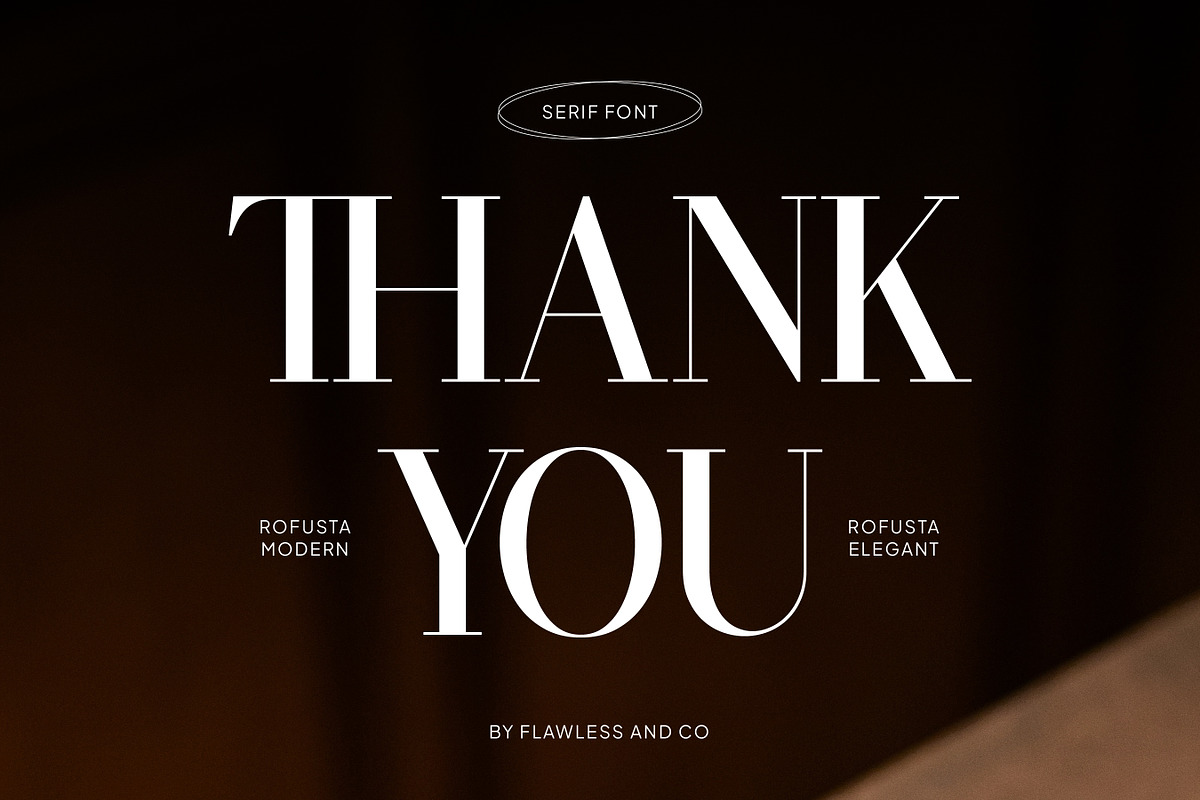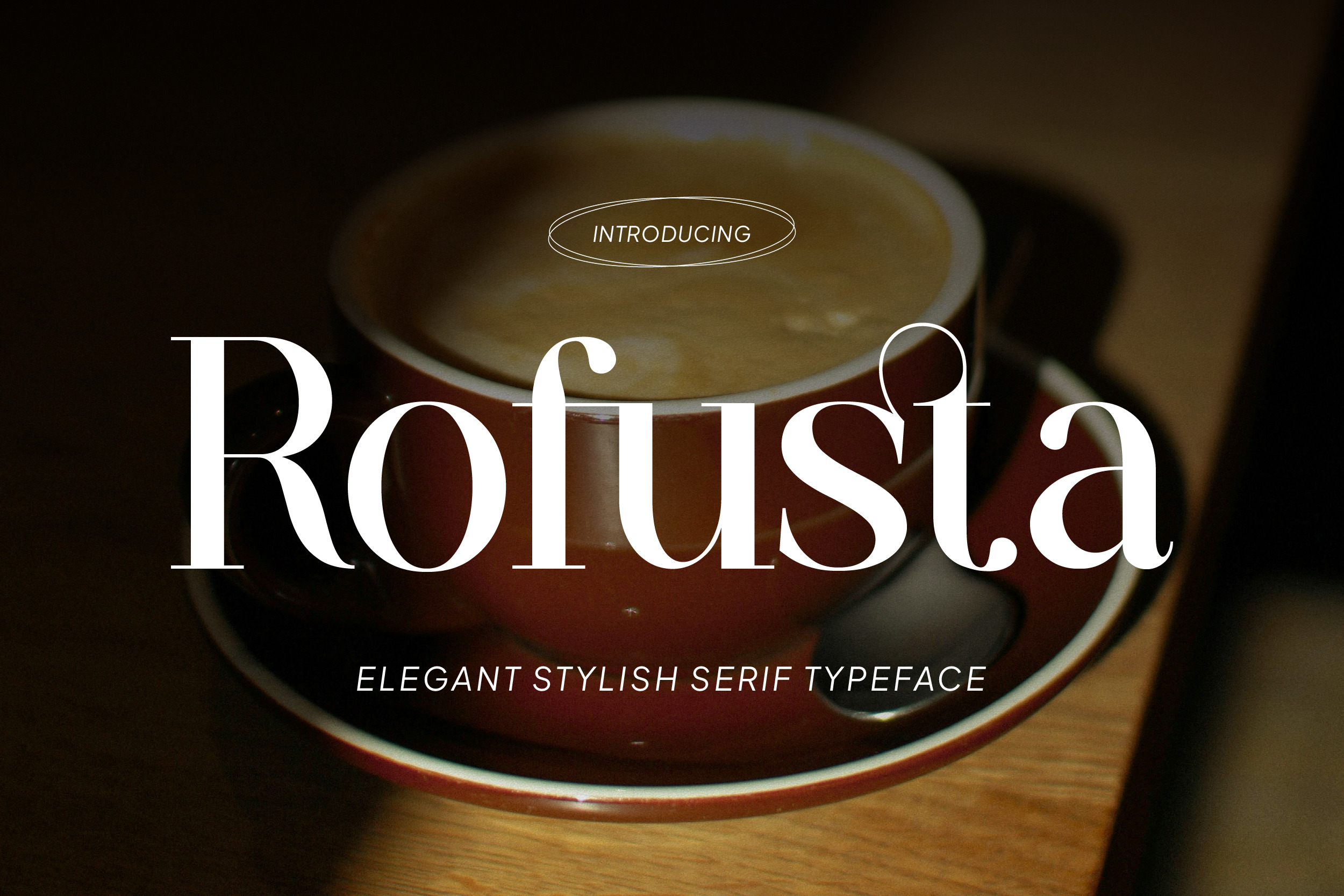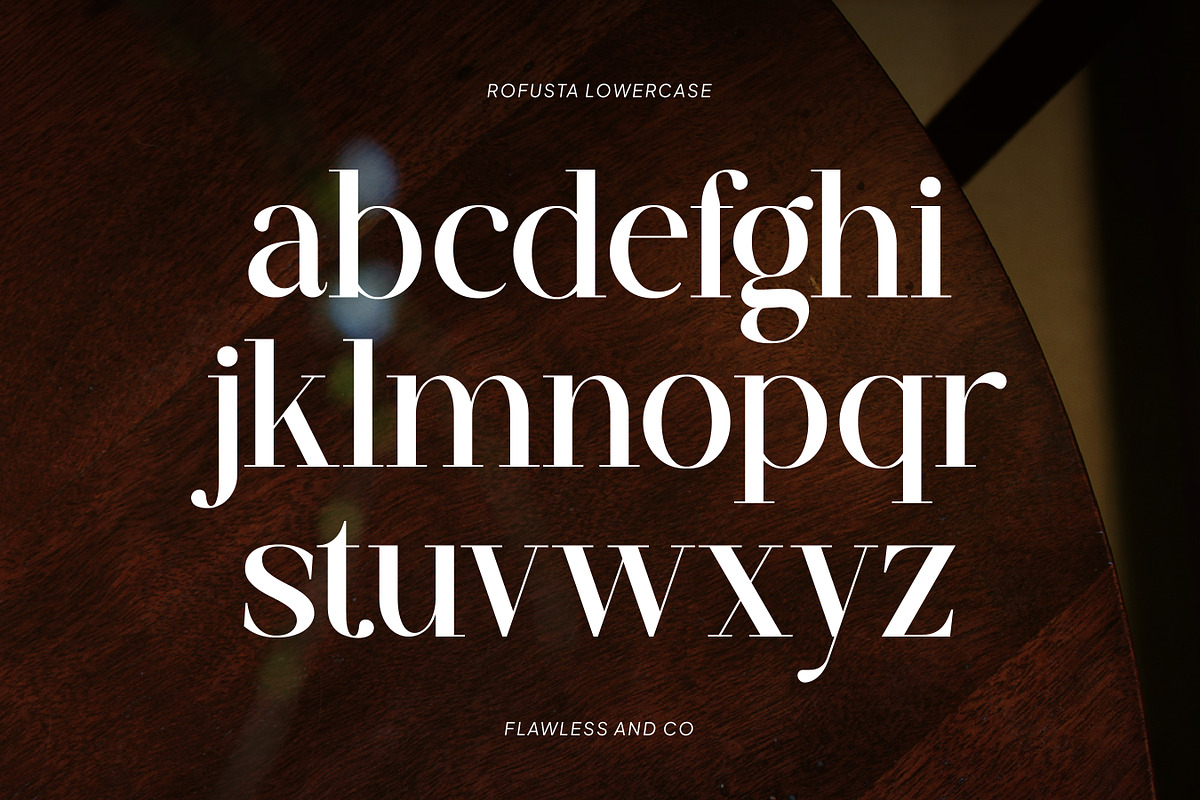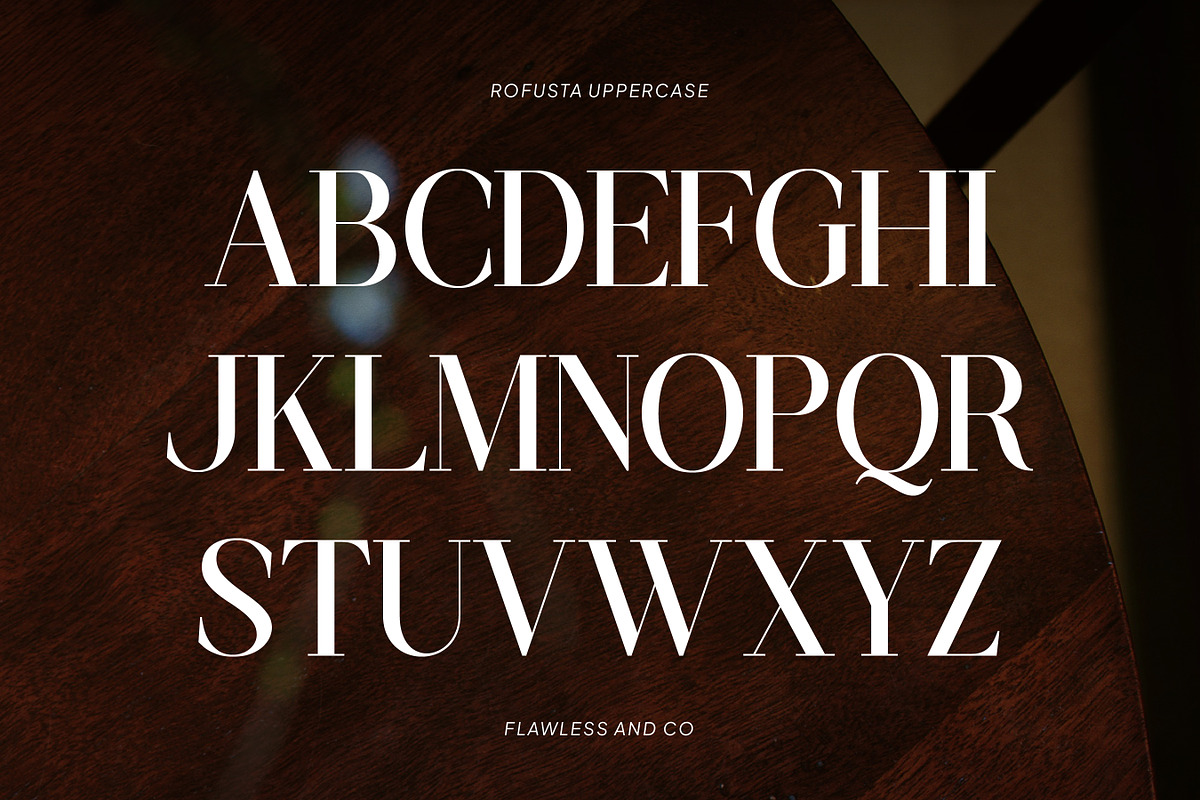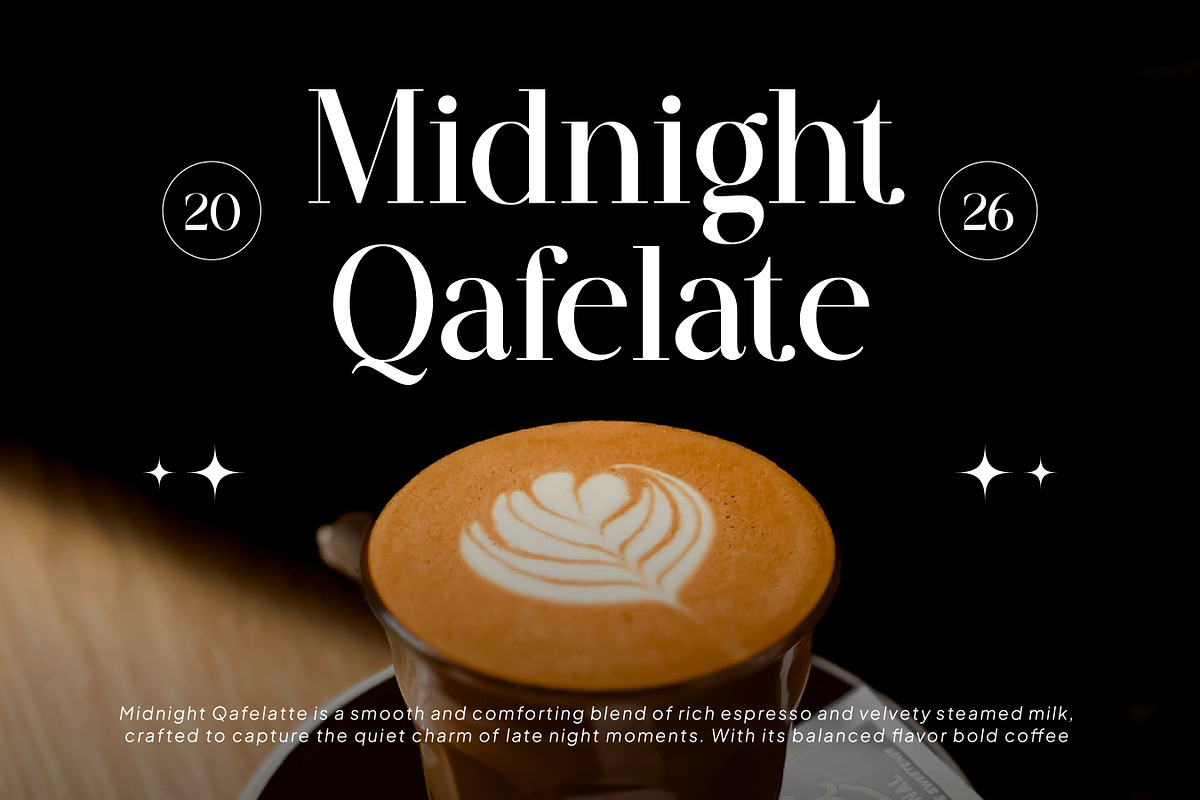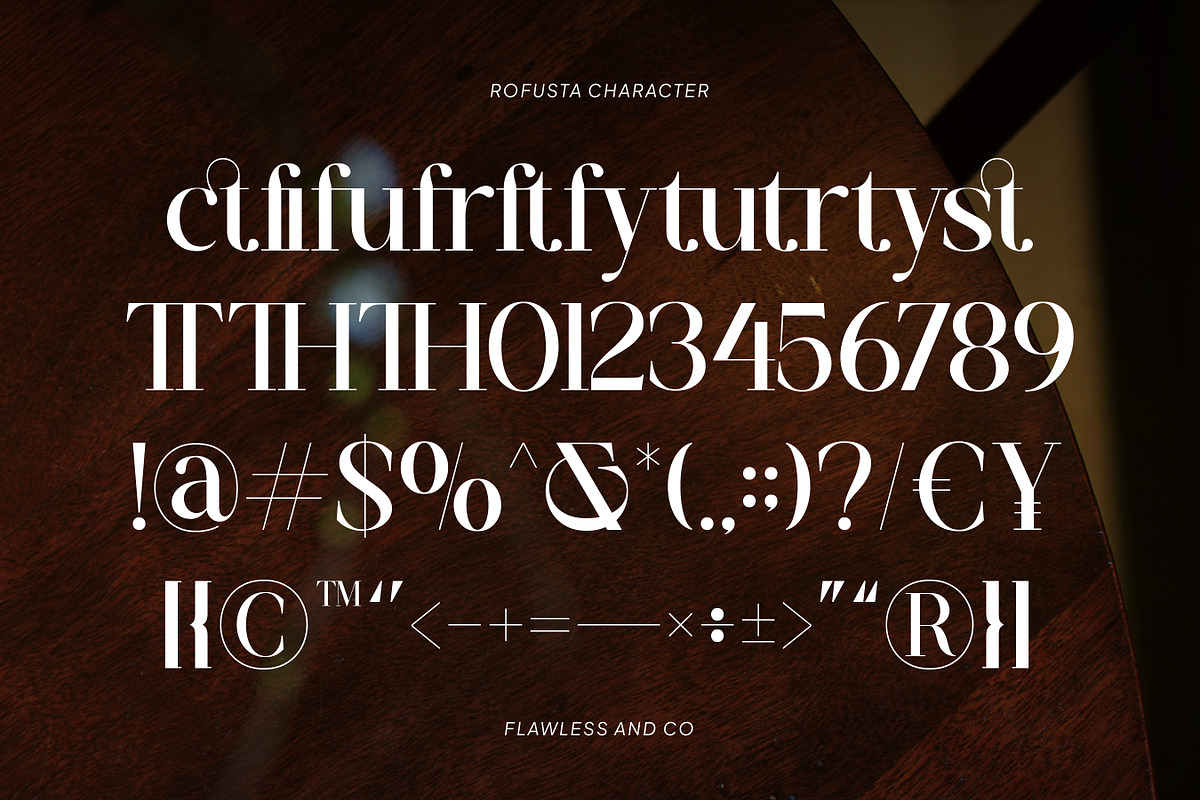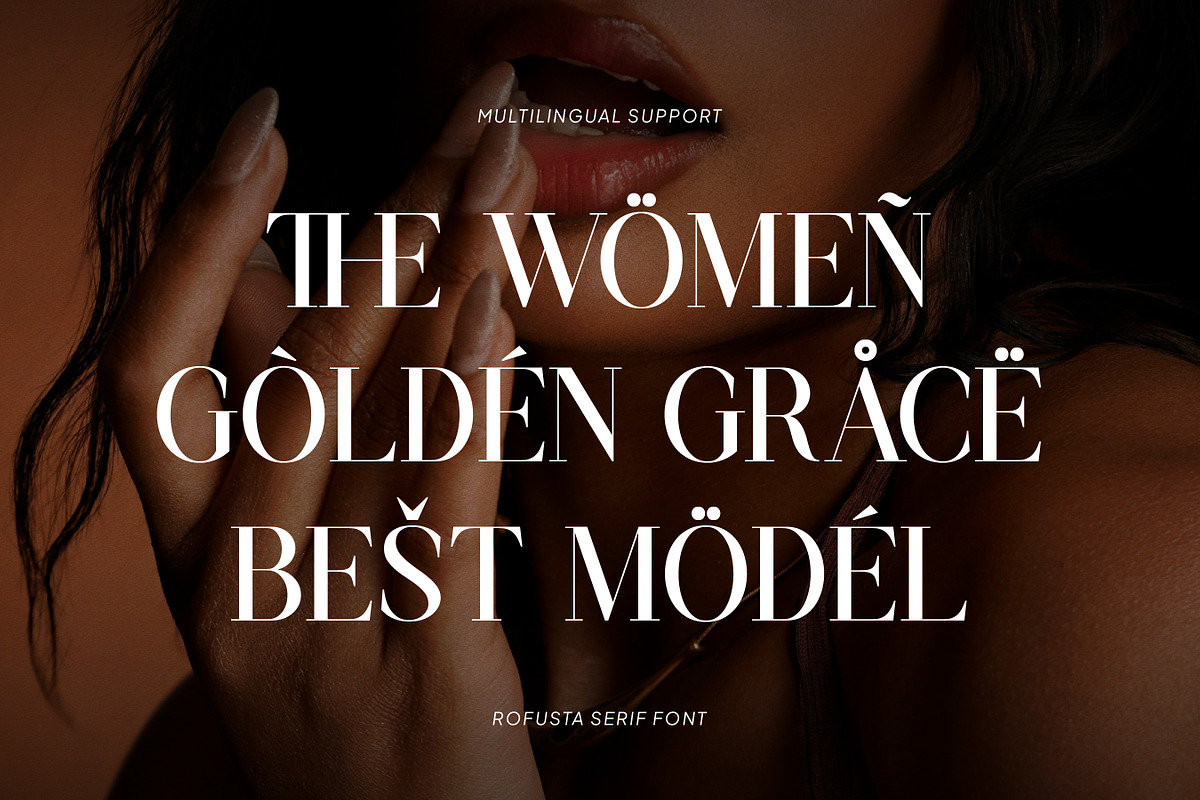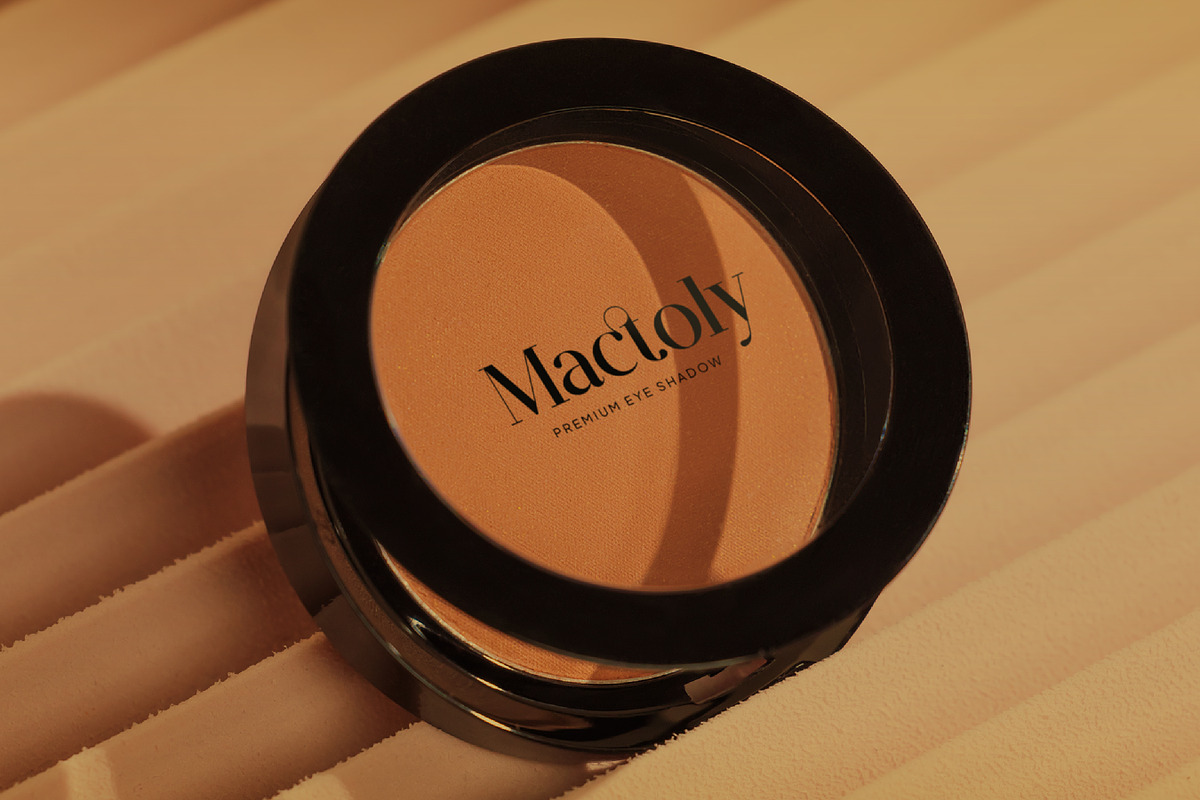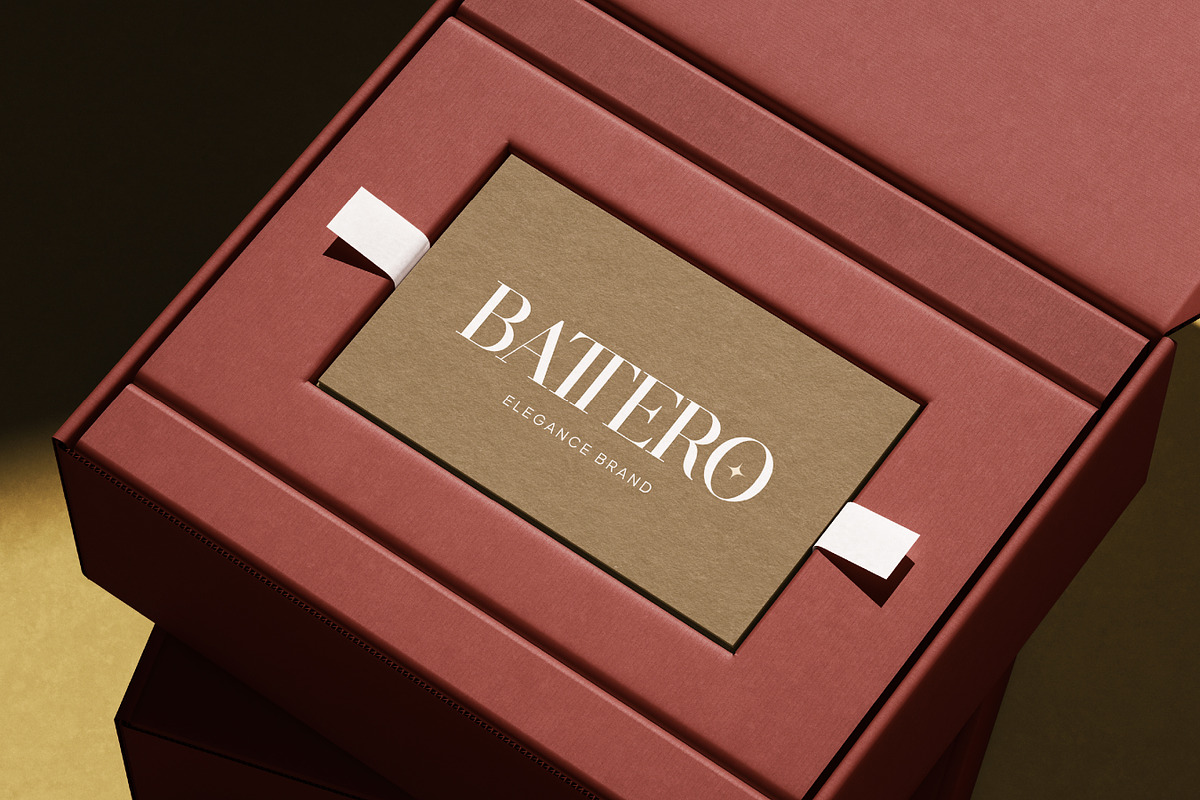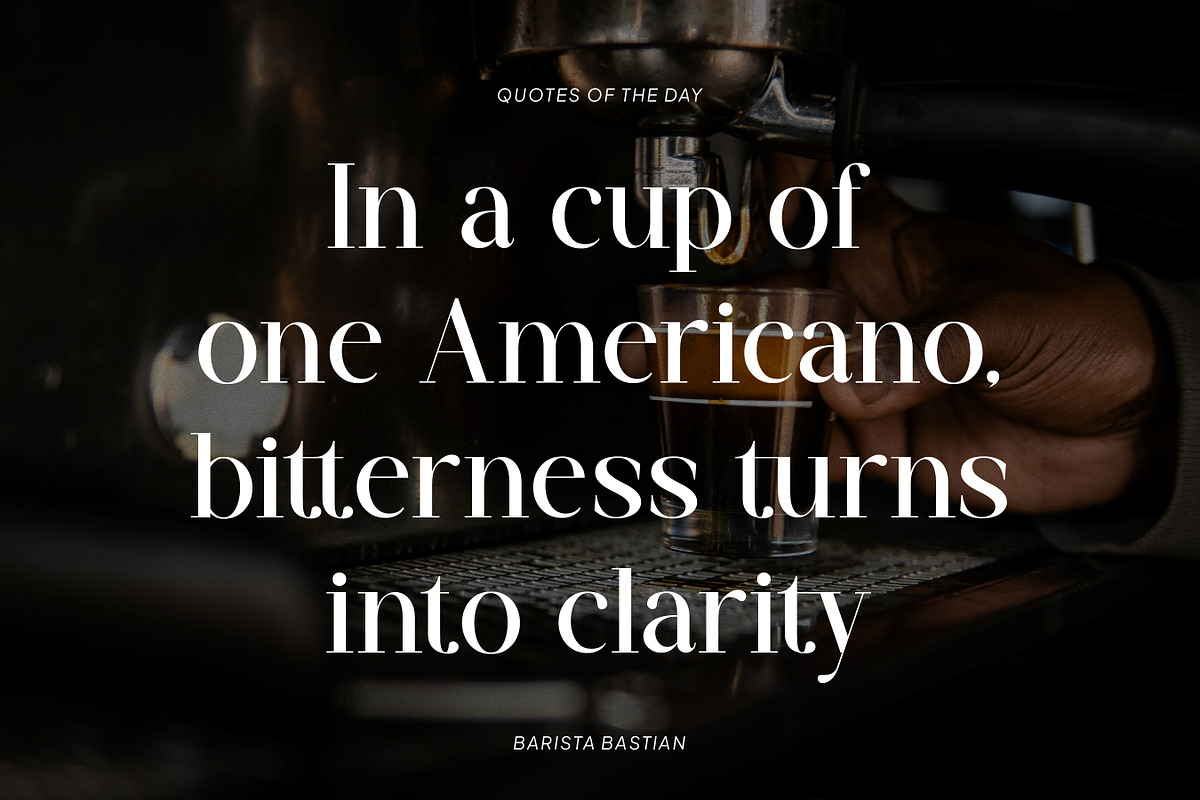
Rofusta - Elegant Stylish Serif Font
Rofusta is a sophisticated elegant serif typeface that combines modern style with timeless beauty. Designed with refined curves and distinctive serif details, Rofusta delivers a luxurious and graceful appearance that instantly elevates any design. Its stylish character makes it perfect for creating visually striking typography while maintaining a clean and professional feel. Whether used for bold headlines or elegant compositions, Rofusta brings a strong and memorable presence to your work.
Who Should Use Rofusta?
Rofusta is perfect for designers, creatives, and brand builders who want to express elegance and sophistication in their projects. It’s especially suitable for those working on premium branding, fashion-related designs, and modern editorial layouts that require a stylish and polished touch.
Suitable For:
- Luxury and high-end branding
- Fashion and beauty logos
- Elegant packaging design
- Wedding invitations and stationery
- Editorial and magazine layouts
- Social media graphics
- Modern advertising and promotions
- Stylish quotes and typography design